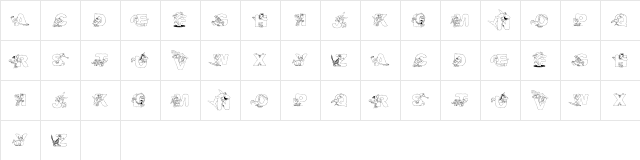
AbecedarianZoo Regular Free Font
AbecedarianZoo Regular
Foundry: Character
Designer: From Art Explosion 200,000; fontisized by Character
Design Context for AbecedarianZoo
AbecedarianZoo is a composed and adaptable typeface that performs quietly and consistently across a wide range of design contexts.